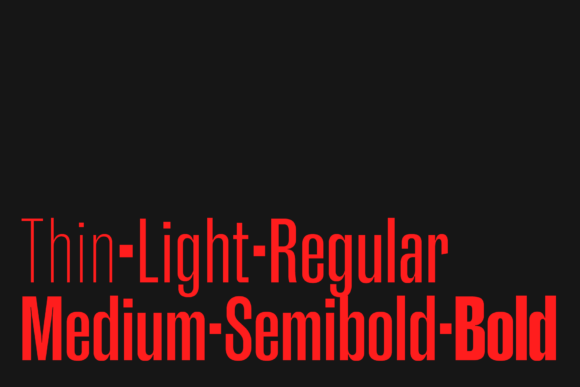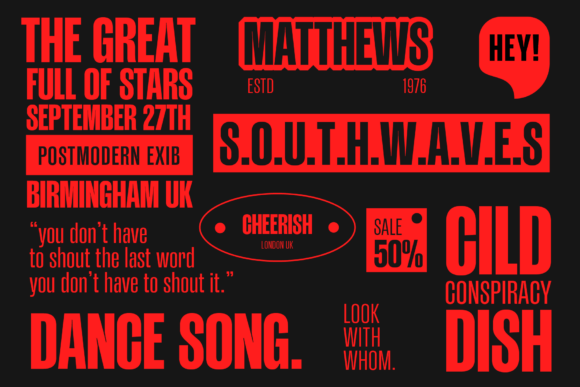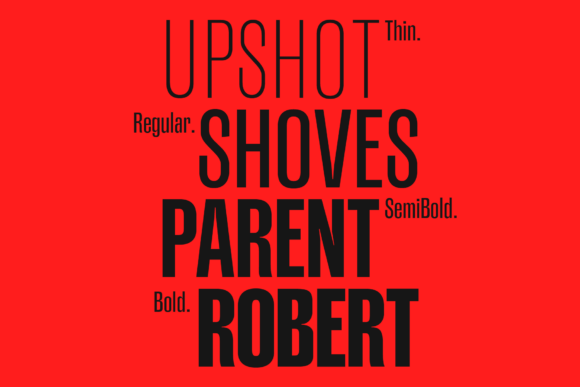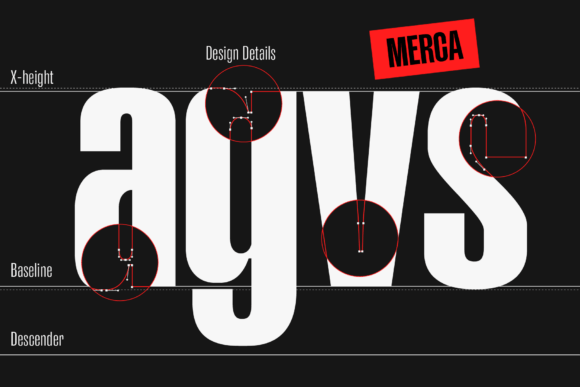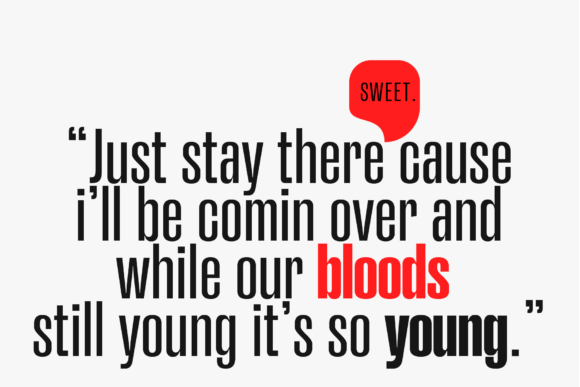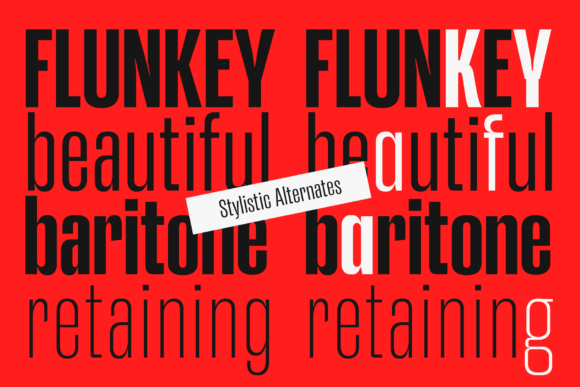
Introduction to Merca Font
Merca is a sharply condensed typeface built for bold visual impact.
With its narrow proportions, tall stance, and uncompromising vertical structure, Merca delivers a commanding headline presence while maintaining clean readability Designed for brands that need to speak directly, strongly, and unapologetically, Merca pushes a powerful typographic tone, assertive in posture, precise in rhythm, and visually dominant in any layout.